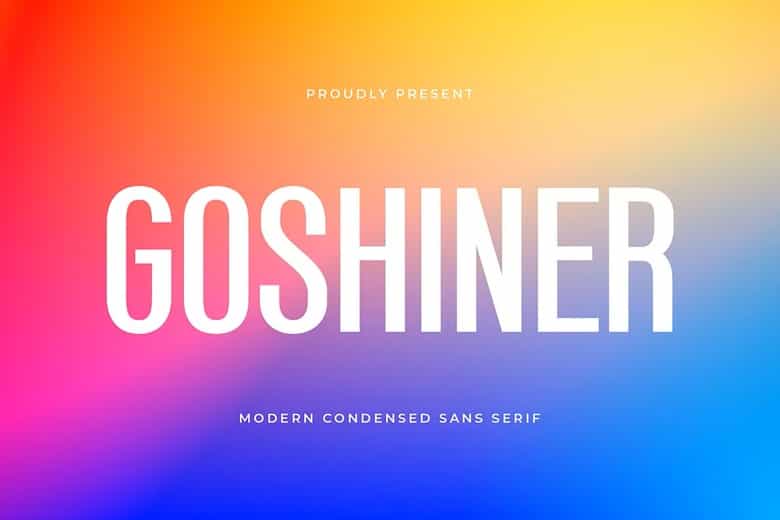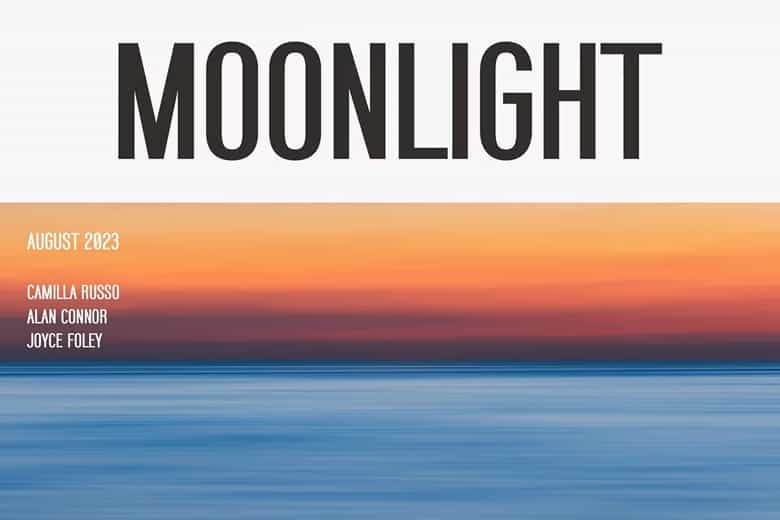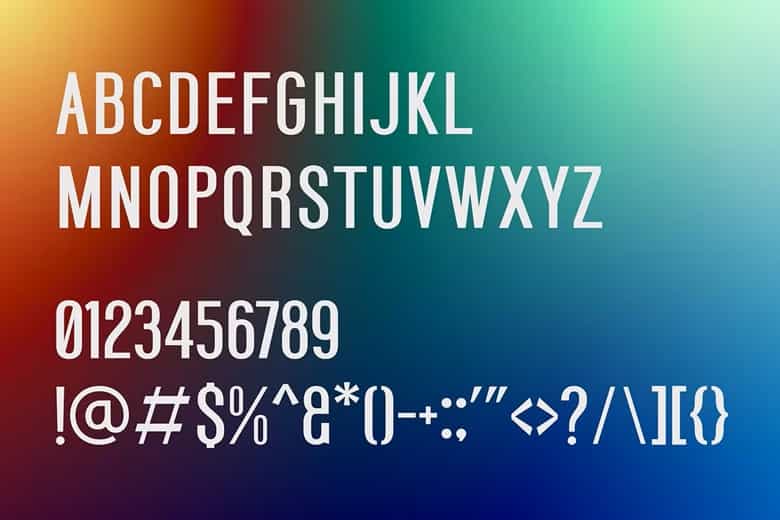
Goshiner is an assertive and vigorous sans serif font. Regardless of the discussion, this font will become an unbelievable acquisition to your fonts collection because it could lift any work. Goshiner is perfect for branding, logos, invitation, magazines, product packaging and more.